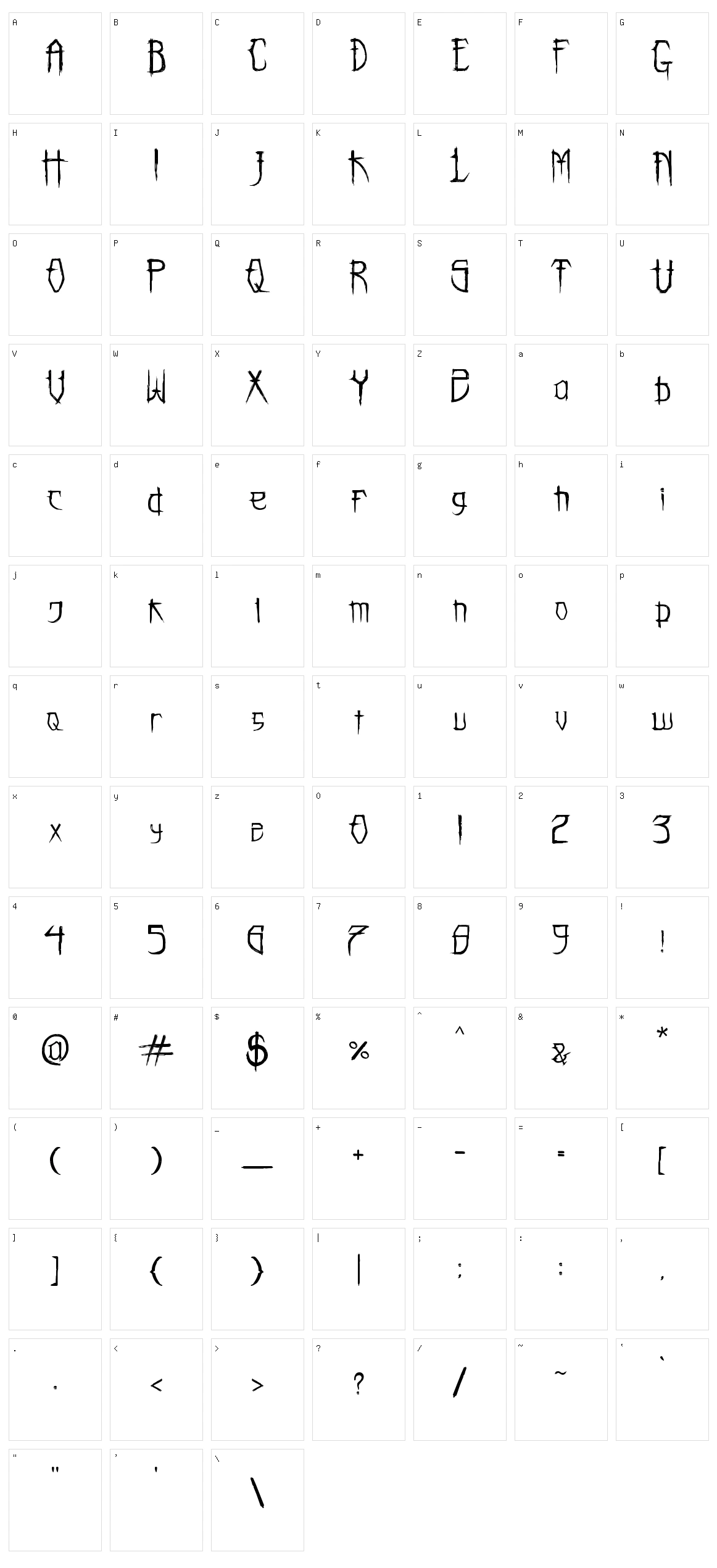
The free font Monstorm is carefully designed by Figuree Studio, showcasing a thoughtful balance of creativity and usability and falls under the Halloween font style. When you download the ZIP file, it contains only 137.83 KB of font files, making it lightweight and quick to download. Please review the license details below to understand permitted usage and distribution rights. If license information is not available, we recommend using this font for personal projects only or contacting the author directly for commercial usage permissions.